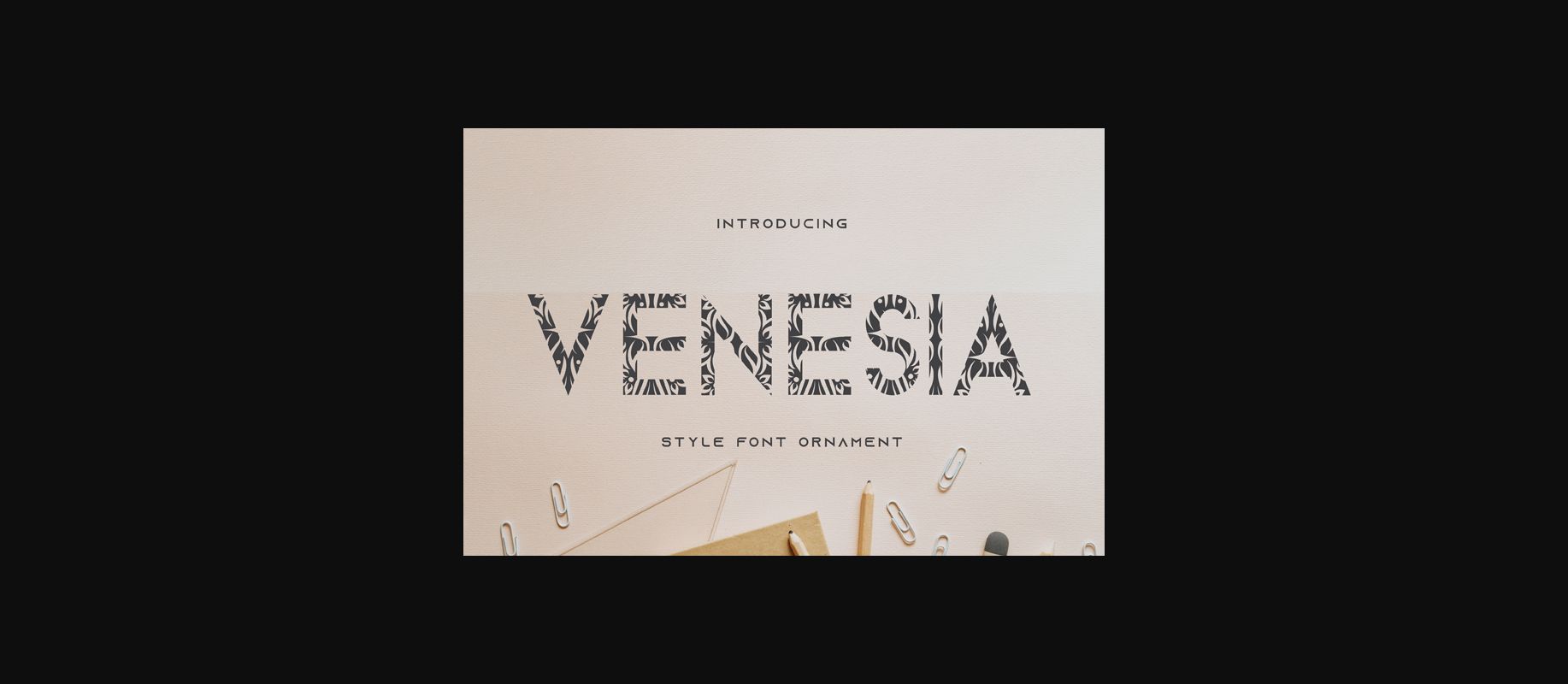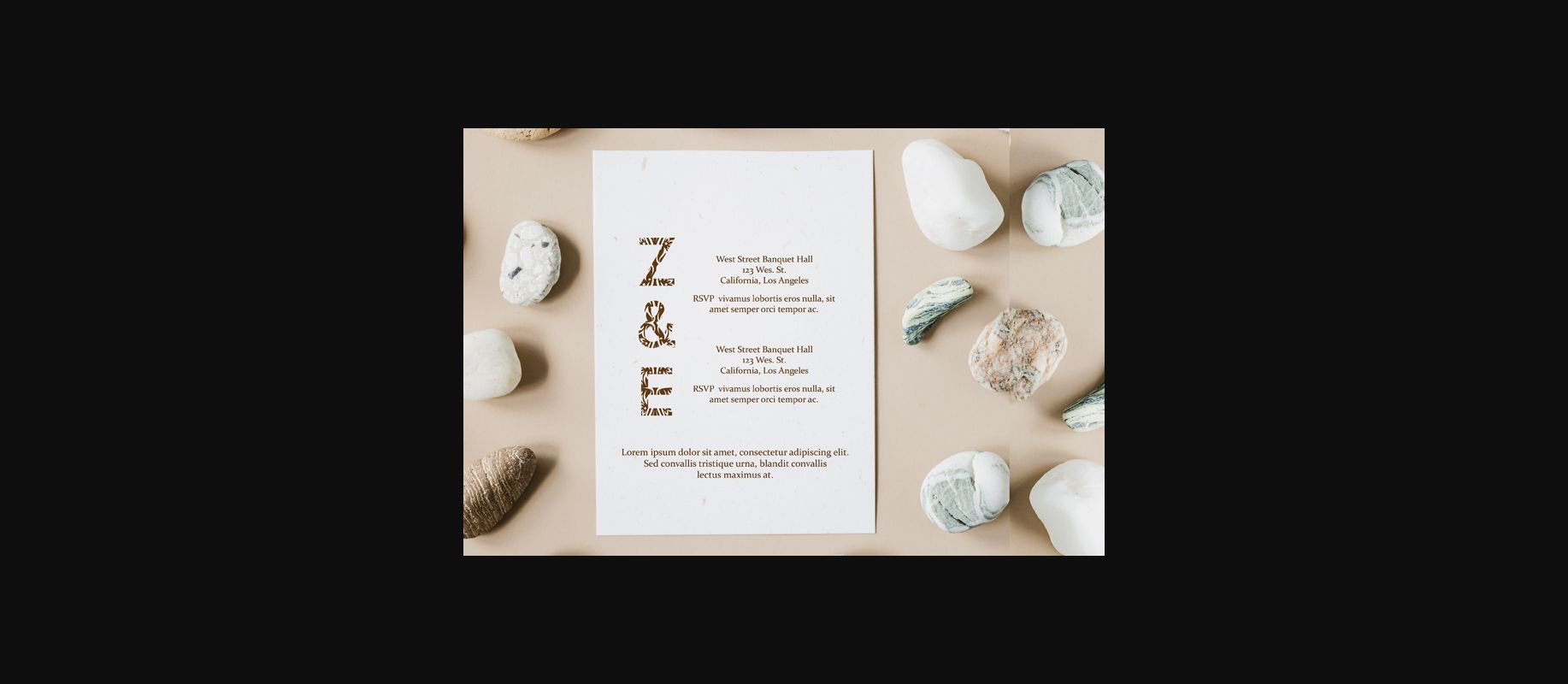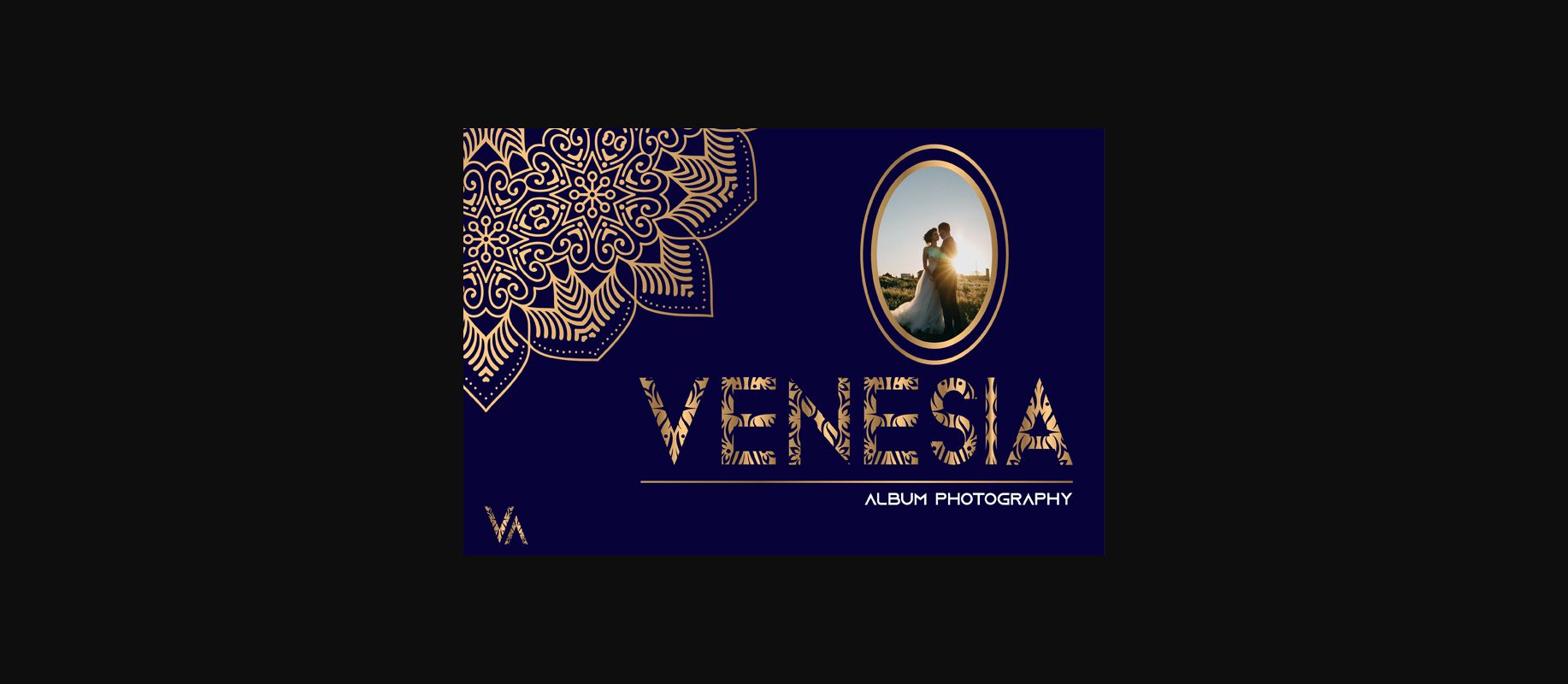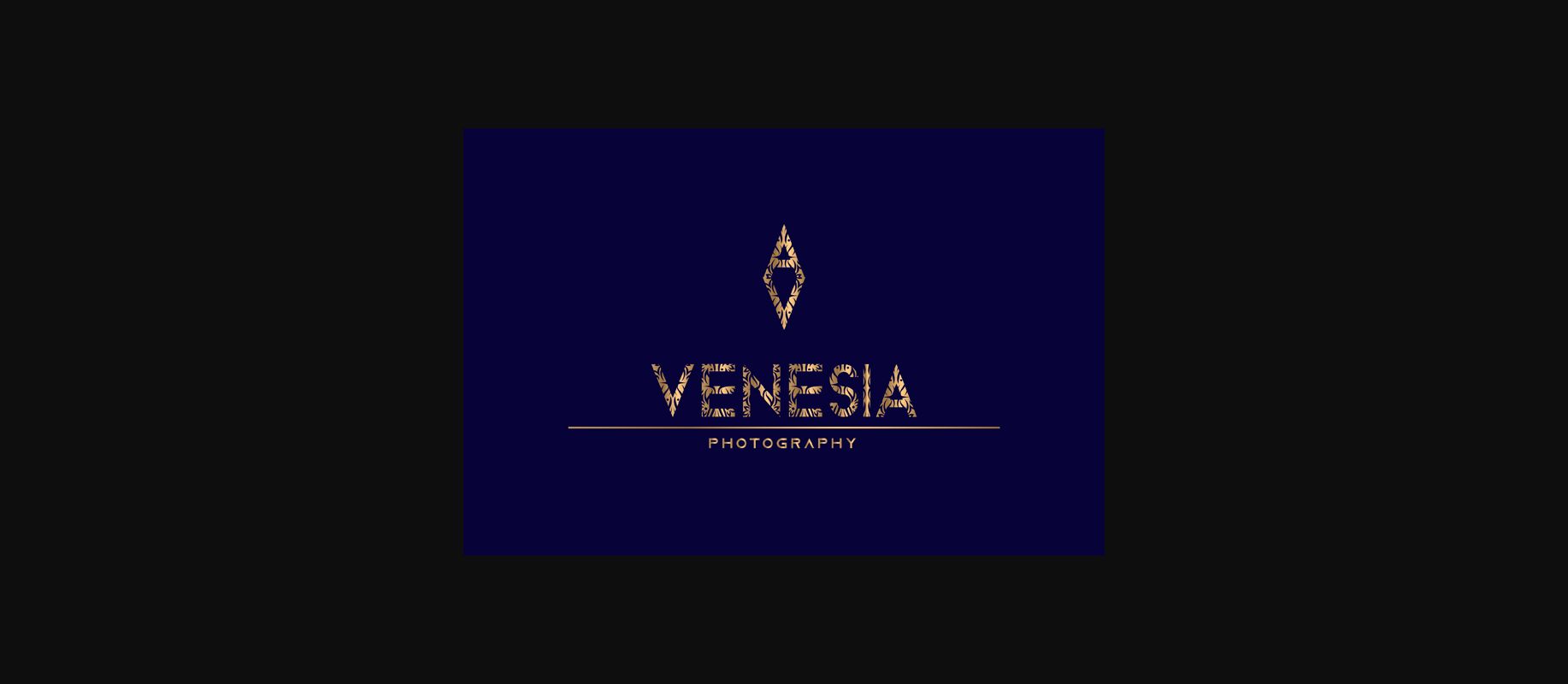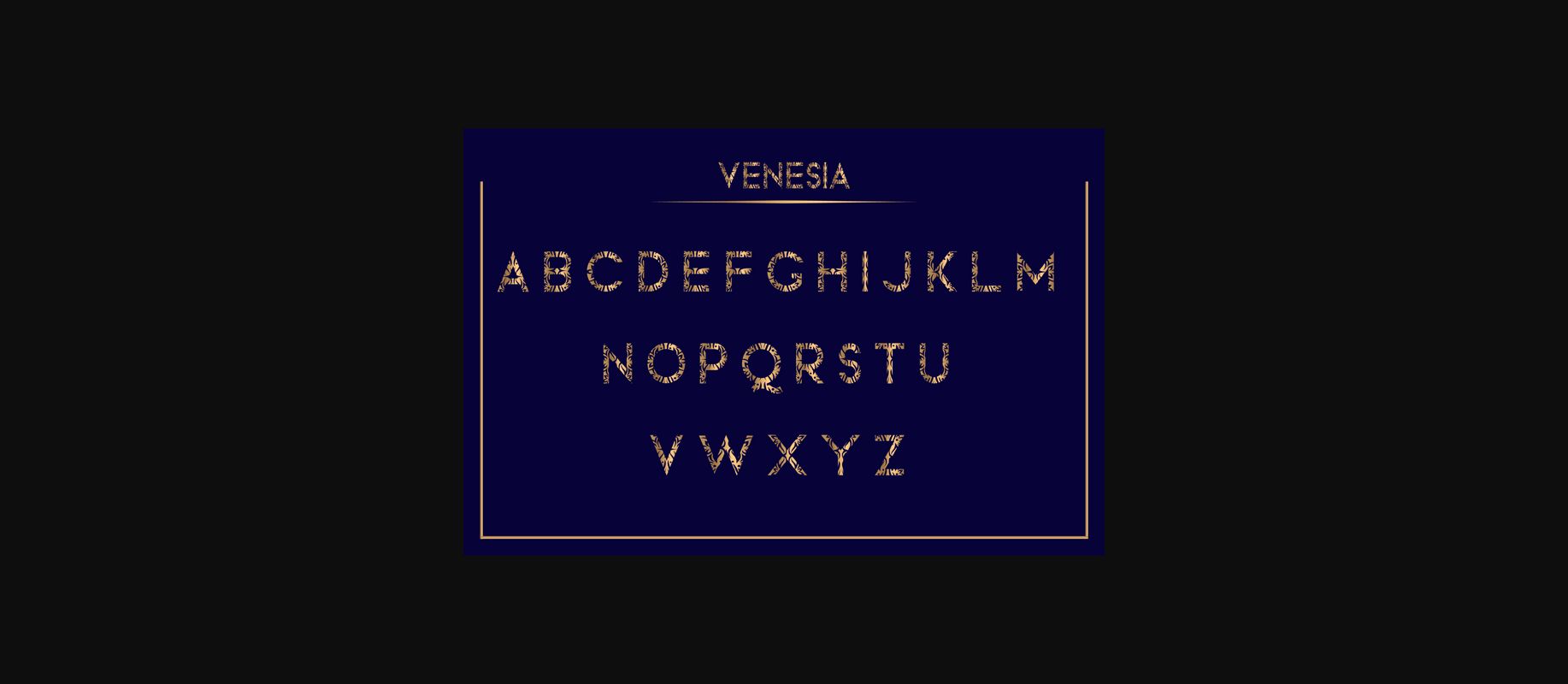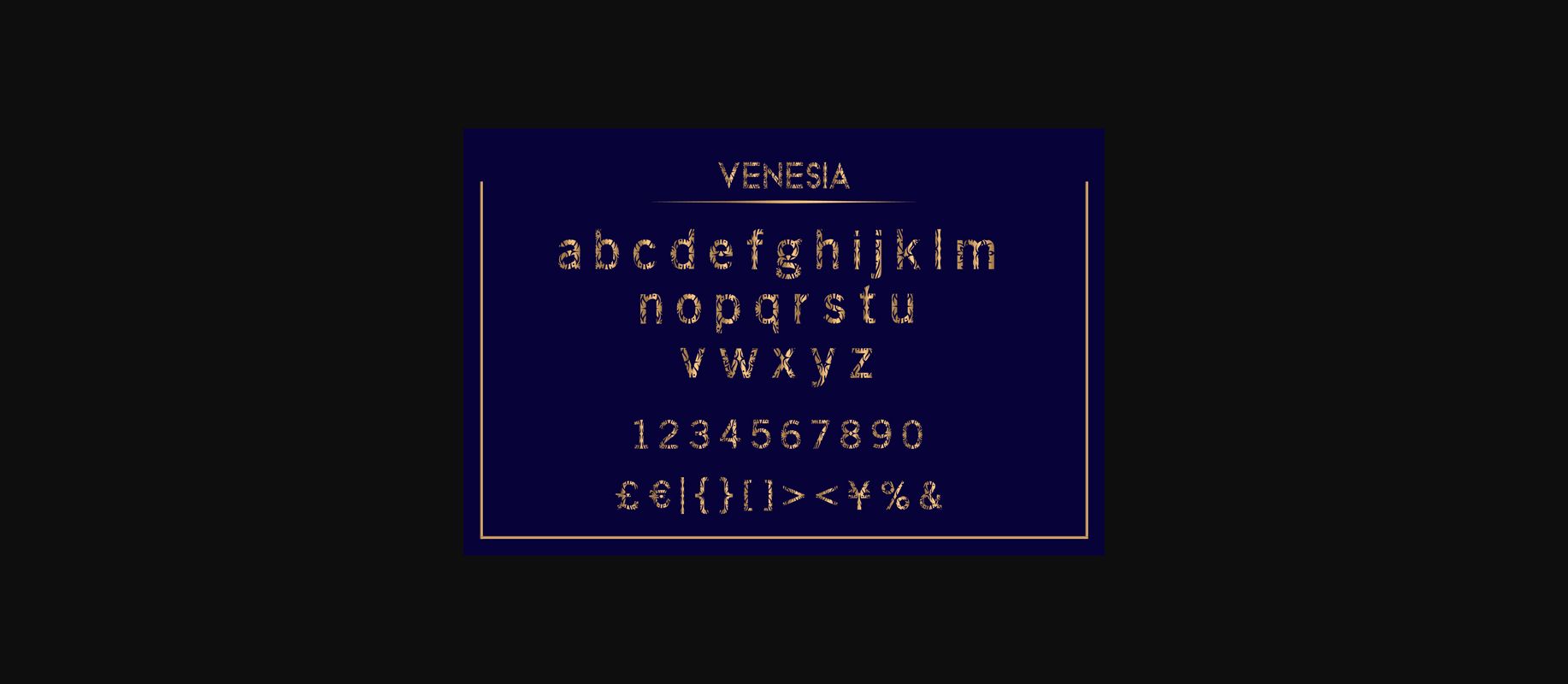
Venesia Font
About Venesia Font
Venesia is an incredibly cool and fresh decorative font. It looks original and emanates plenty of energy, so add it to your designs and they will come alive!